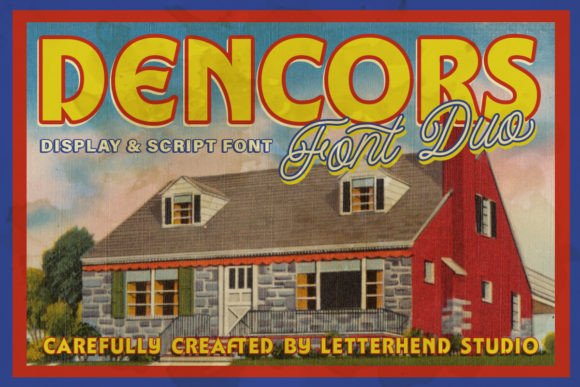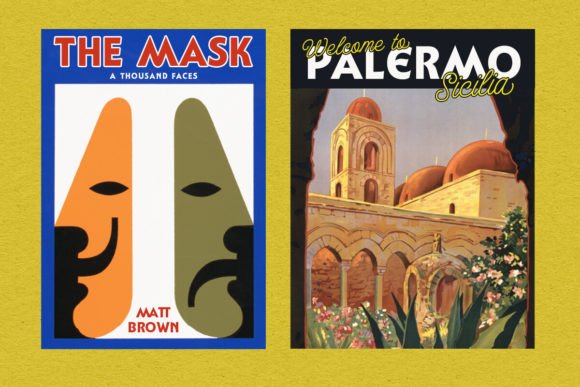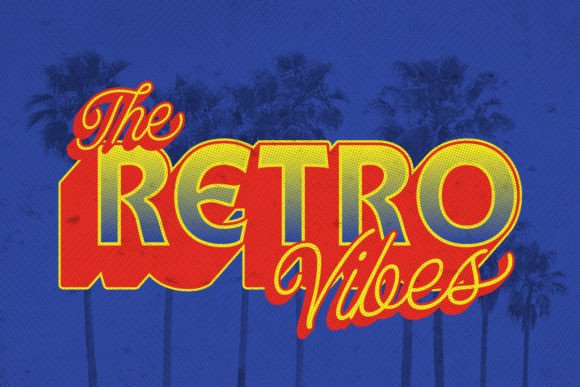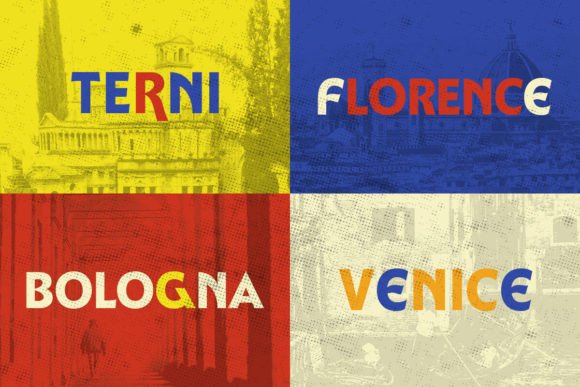
Dencors Font
About the Dencors Font
Discover the charm of Dencors Font. This font is a perfect blend of modern aesthetics and classic appeal. Relive the golden era of art with the timeless charm of Dencors- A new font duo with classy script and classic display sans. With vintage feel, inspired by 60s and 70s signages. This font perfectly made to be applied especially in logo, and the other various formal forms such as invitations, labels, logos, magazines, books, greeting / wedding cards, packaging, fashion, make up, stationery, novels, labels or any type of advertising purpose.
Dencors’ vintage-inspired aesthetic shines in headlines, logos, and short-form text applications like packaging and posters. Its retro charm is ideal for brands aiming for a sophisticated, yet approachable feel, particularly within the fashion, beauty, or lifestyle sectors. Avoid using Dencors for body text or UI elements; its decorative nature compromises readability in extended passages.
Pairing Dencors with a clean sans-serif like Lato or a geometric sans-serif like Montserrat creates a balanced contrast, modernizing its vintage appeal. For a more luxurious feel, consider pairing the script with a subtle serif like Garamond or a delicate script like Great Vibes, but keep the pairing concise for maximum impact.
Dencors projects a confident, stylish personality, best suited for brands emphasizing heritage, quality, and understated elegance. Its retro styling evokes a sense of nostalgia without feeling dated, making it a versatile yet distinctive choice for select design applications.
Dencors Font Example